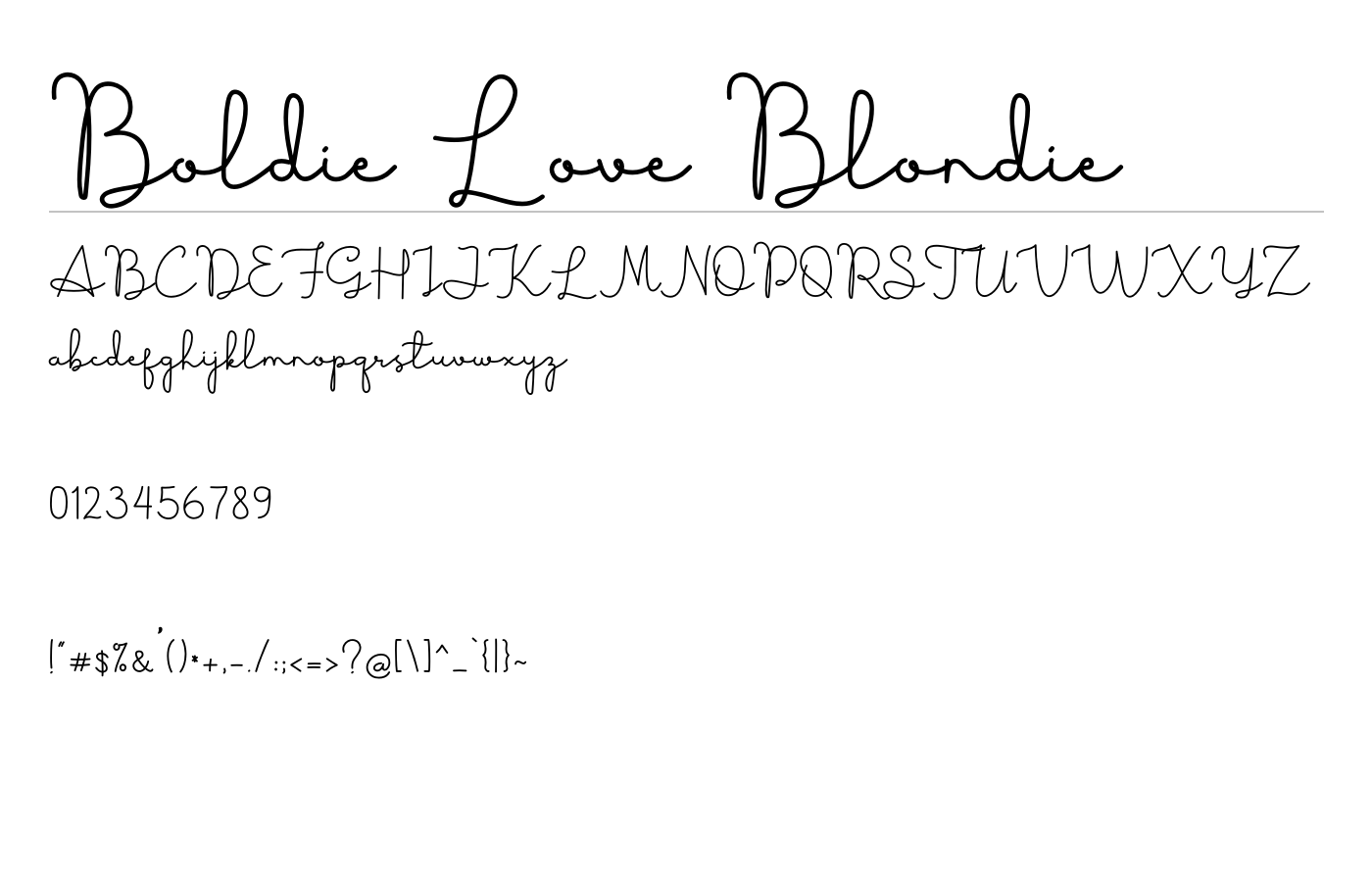
Boldie Love Blondie is a delicate, whimsical script font with a light, airy feel created by its thin, continuous strokes and graceful loops. Its playful yet elegant character makes it perfect for creative, feminine designs like invitations, branding, and editorial work that seek a charming, hand-crafted touch. This font’s flowing letterforms and consistent stroke width give it a modern, approachable style ideal for adding personality and warmth to projects.
Boldie Love Blondie Font
About Boldie Love Blondie Font
| Font family | Boldie Love Blondie Font |
| Designer | Typesthetic Studio - Hamzah Muhamad Ihsan - Jakarta (INA) |